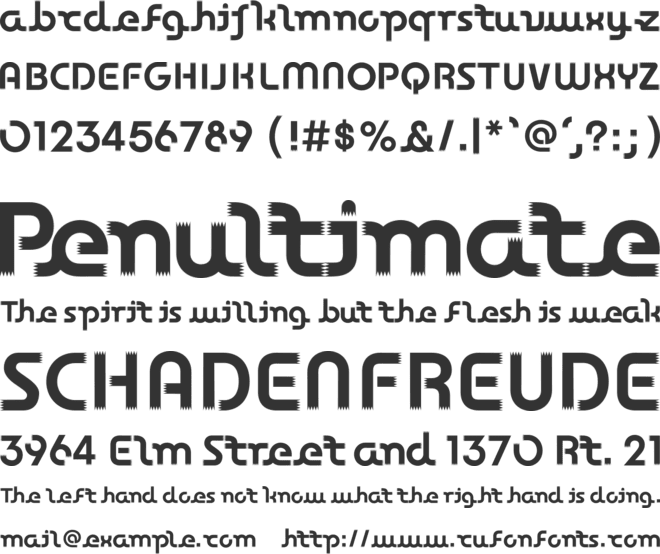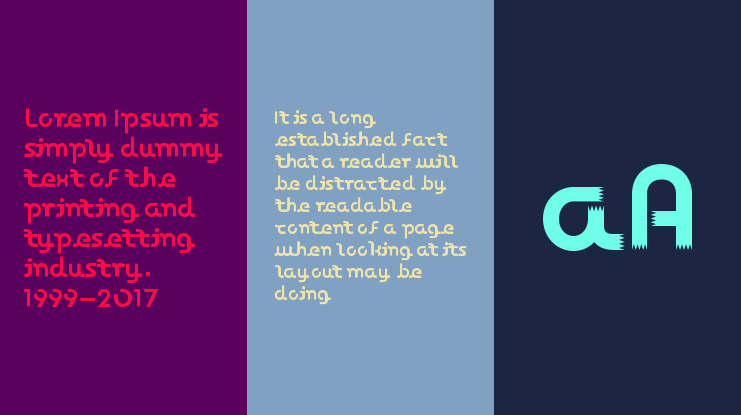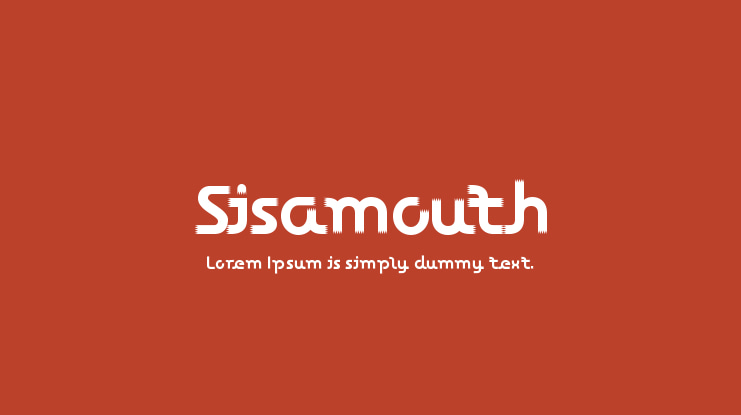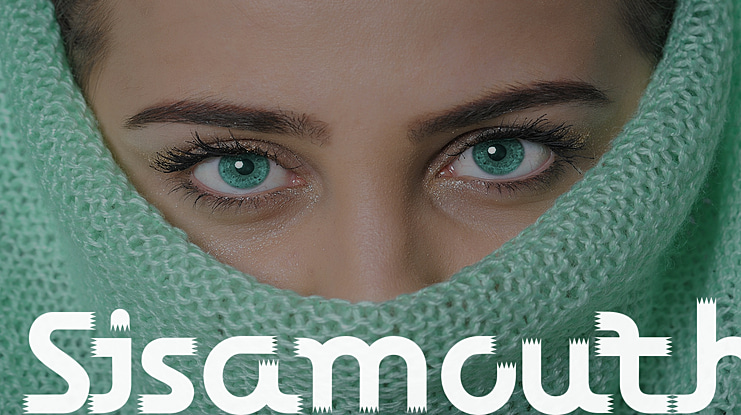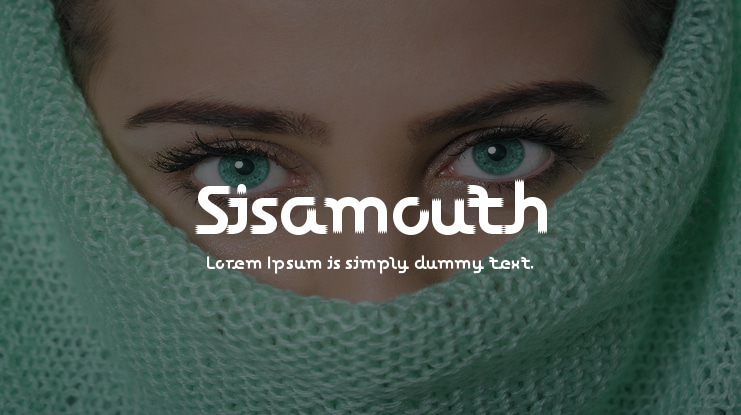
Sisamouth Font
Tom Tor
Influenced by a legendary and iconic singer with the golden voice from Cambodia name Sinn Sisamouth and to celebrate his life and his accomplishment we decided to design the font and dedicated to him. Sisamouth is a new typeface is a unique character with a contemporary, despite the modernist look and playfulness. This typeface mostly uses for headlines, catch copy and call to action. The individual letters allow you to easily connect together by kerning.